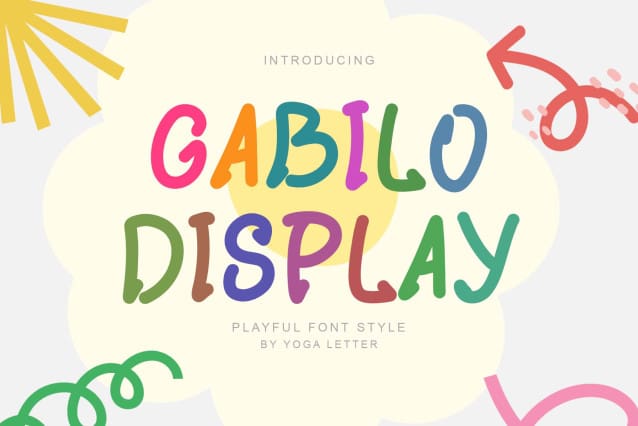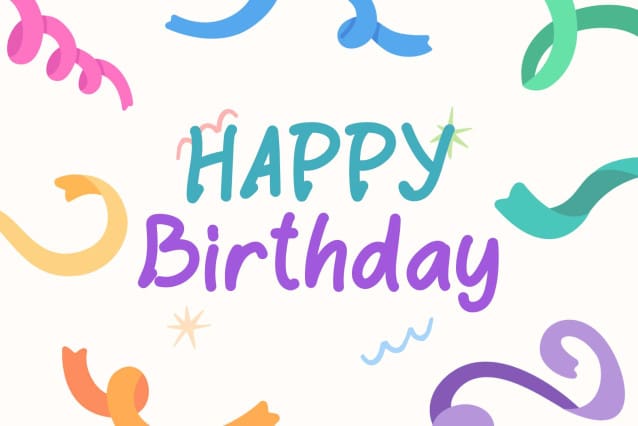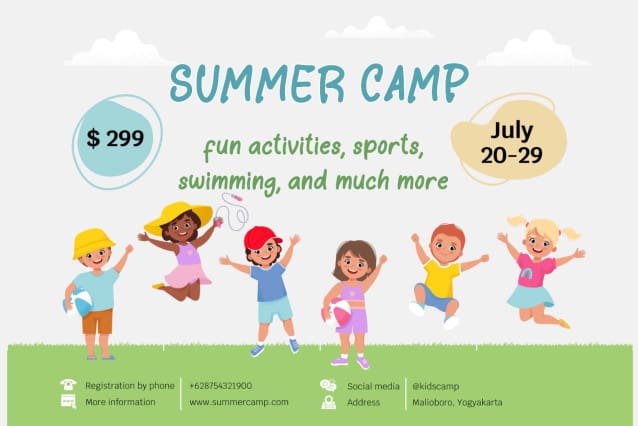
Gabilo Display Font
Gabilo Display Font, With a childish style, it will be very suitable for your project, which is related to children. Such as story books, illustrations, comic books, t-shirts, posters, greeting cards, logos, branding, stickers, svg, crafting.